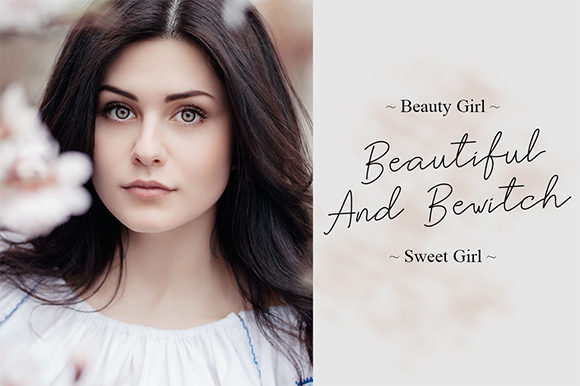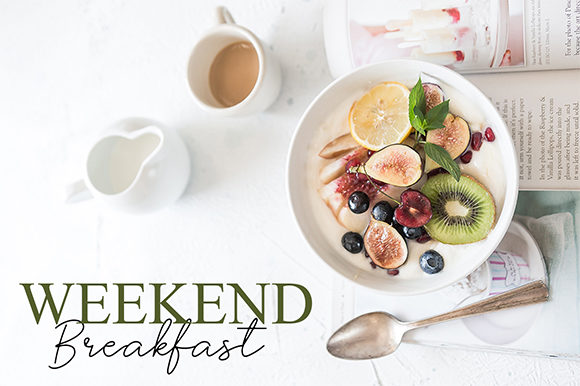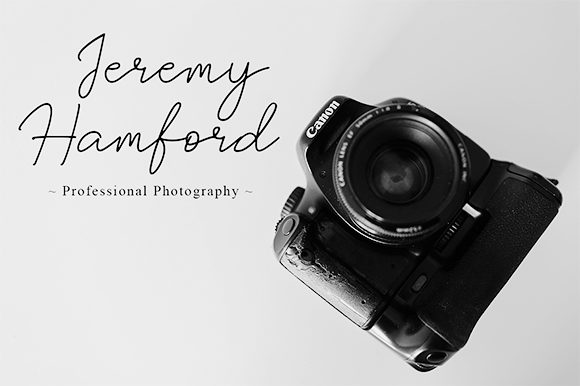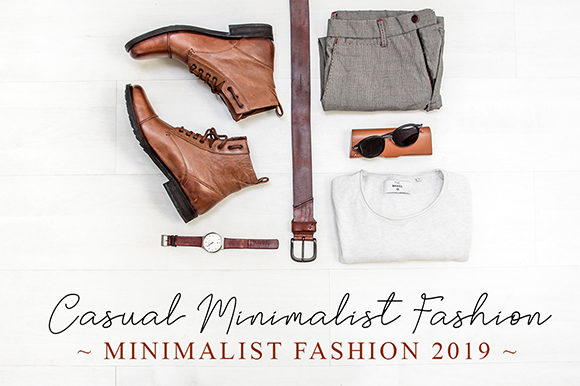
Brittney Font: The Sweet and Soft Hand-Lettered Script Font You Need
Are you a designer or crafter looking for a font that exudes sweetness and softness? Look no further than Brittney Font! This beautiful hand-lettered script font is perfect for creating stunning wedding invitations, gorgeous stationery art, eye-catching social media posts, and cute greeting cards. In this article, we’ll dive into the world of Brittney Font and explore its features, uses, and benefits.
What is Brittney Font?
Brittney Font is a sweet and soft hand-lettered script font that is sure to capture your heart. Its authentic feel and elegant strokes make it perfect for a variety of design projects. Whether you’re creating wedding invitations, social media graphics, or greeting cards, Brittney Font is the perfect choice.
Features of Brittney Font
Brittney Font comes with a range of features that make it a versatile and user-friendly font. Some of its key features include:
- Hand-lettered script: Brittney Font is a hand-lettered script font, which gives it a unique and authentic feel.
- Sweet and soft: The font’s sweet and soft strokes make it perfect for creating feminine and elegant designs.
- Elegant strokes: Brittney Font’s elegant strokes add a touch of sophistication to any design.
- Easy to read: Despite its script style, Brittney Font is easy to read, making it perfect for body text and headlines.
Uses of Brittney Font
Brittney Font is a versatile font that can be used for a variety of design projects. Here are some of the most popular uses of Brittney Font:
- Wedding invitations: Brittney Font is perfect for creating stunning wedding invitations that exude elegance and sophistication.
- Stationery art: The font’s sweet and soft strokes make it perfect for creating beautiful stationery art, including greeting cards, thank-you cards, and more.
- Social media posts: Brittney Font is a great choice for creating eye-catching social media posts that stand out from the crowd.
- Greeting cards: The font’s elegant strokes and sweet feel make it perfect for creating cute and personalized greeting cards.
Benefits of Using Brittney Font
There are many benefits to using Brittney Font in your design projects. Here are some of the most significant advantages:
- Unique and authentic feel: Brittney Font’s hand-lettered script style gives it a unique and authentic feel that sets it apart from other fonts.
- Elegant and sophisticated: The font’s elegant strokes and sweet feel make it perfect for creating elegant and sophisticated designs.
- Easy to use: Brittney Font is easy to use and comes in a range of formats, making it compatible with most design software.
- Versatile: Brittney Font can be used for a variety of design projects, from wedding invitations to social media posts.
Tips for Using Brittney Font
Here are some tips for using Brittney Font in your design projects:
- Pair with complementary fonts: Brittney Font pairs well with complementary fonts, such as sans-serif fonts, to create a beautiful contrast.
- Use for headlines and body text: Brittney Font is easy to read, making it perfect for both headlines and body text.
- Experiment with colors: Brittney Font looks great in a range of colors, from soft pastels to bold brights.
- Add embellishments: Consider adding embellishments, such as flowers or leaves, to give your designs an extra touch of elegance.
Brittney Font is a beautiful and versatile hand-lettered script font that is perfect for designers and crafters. Its sweet and soft strokes, elegant feel, and authentic style make it a great choice for a variety of design projects. Whether you’re creating wedding invitations, stationery art, social media posts, or greeting cards, Brittney Font is sure to impress. So why not give it a try and see the magic for yourself?